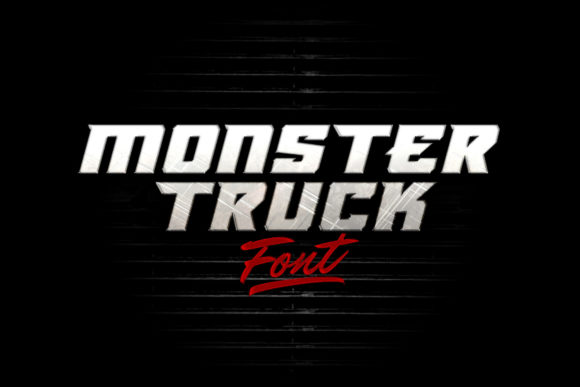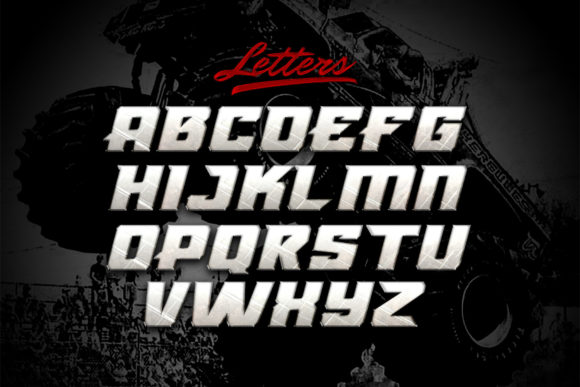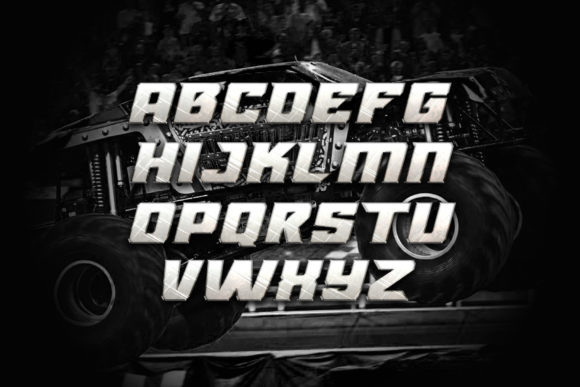
Monster Truck Font
About the Monster Truck Font
We are excited to introduce Monster Truck Font, a must-have typeface for any serious designer. Monster Truck is a cool, bold and modern display font. Add this font to each of your sport or speed related designs and notice how they instantly come to life.
Monster Truck excels as a headline font for projects emphasizing power and speed—think automotive advertising, sports branding, or action-movie posters. Its bold, impactful forms also work well in short, impactful slogans or logos. However, avoid using it for body text or lengthy paragraphs; its weight and character make it unsuitable for extended reading.
The font’s rebellious, modern energy pairs well with clean sans-serif fonts like Open Sans for body copy or a geometric sans-serif like Futura for a more streamlined feel. For a touch of contrast and sophistication, consider pairing it with a classic serif like Garamond or a slightly more playful script font, depending on the desired overall tone.
Monster Truck’s core personality is bold and assertive, making it ideal for brands projecting strength, dynamism, and a sense of high-octane energy. It is not suitable for projects requiring elegance or subtlety.
Monster Truck Font Usage Examples
Monster Truck Font Example